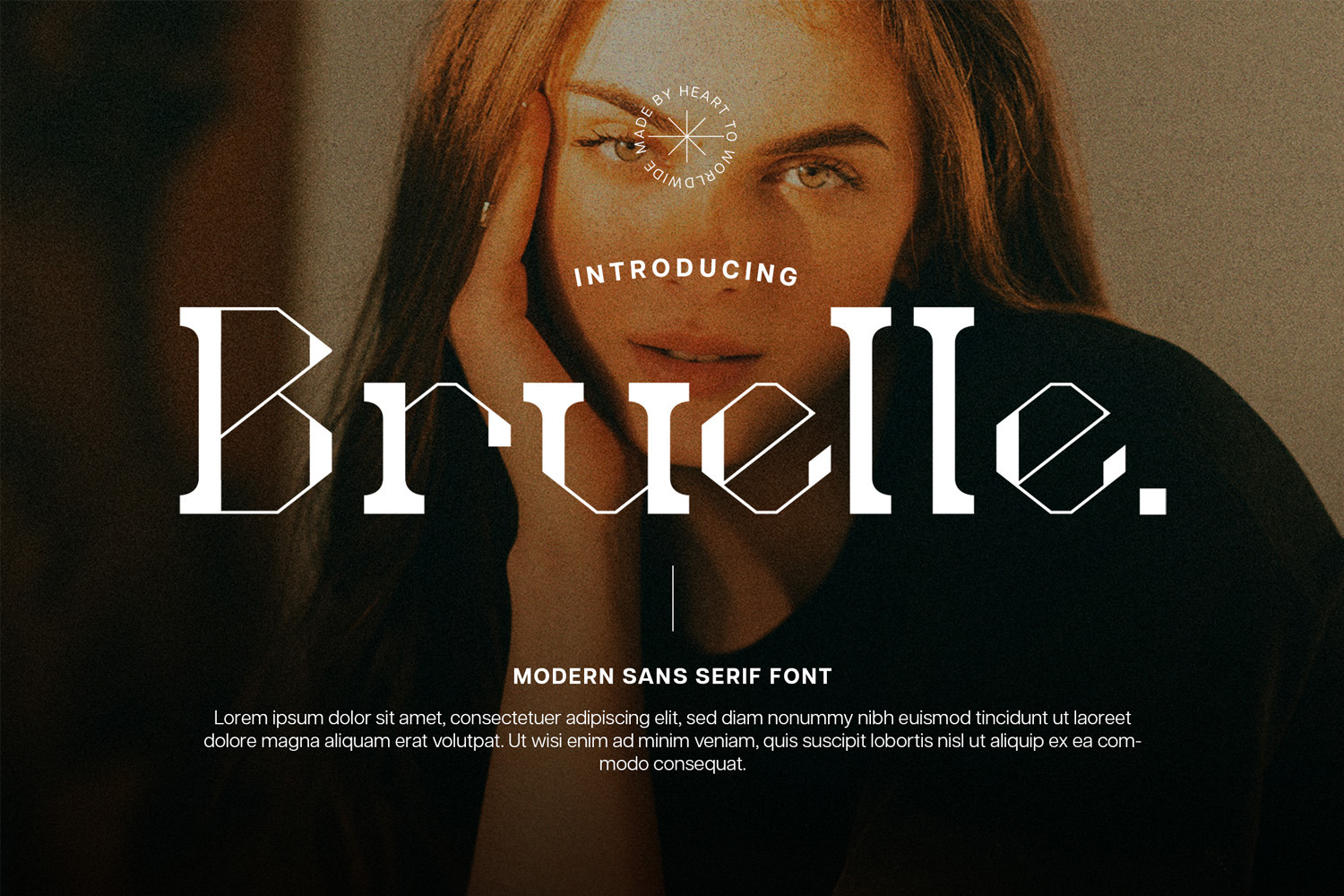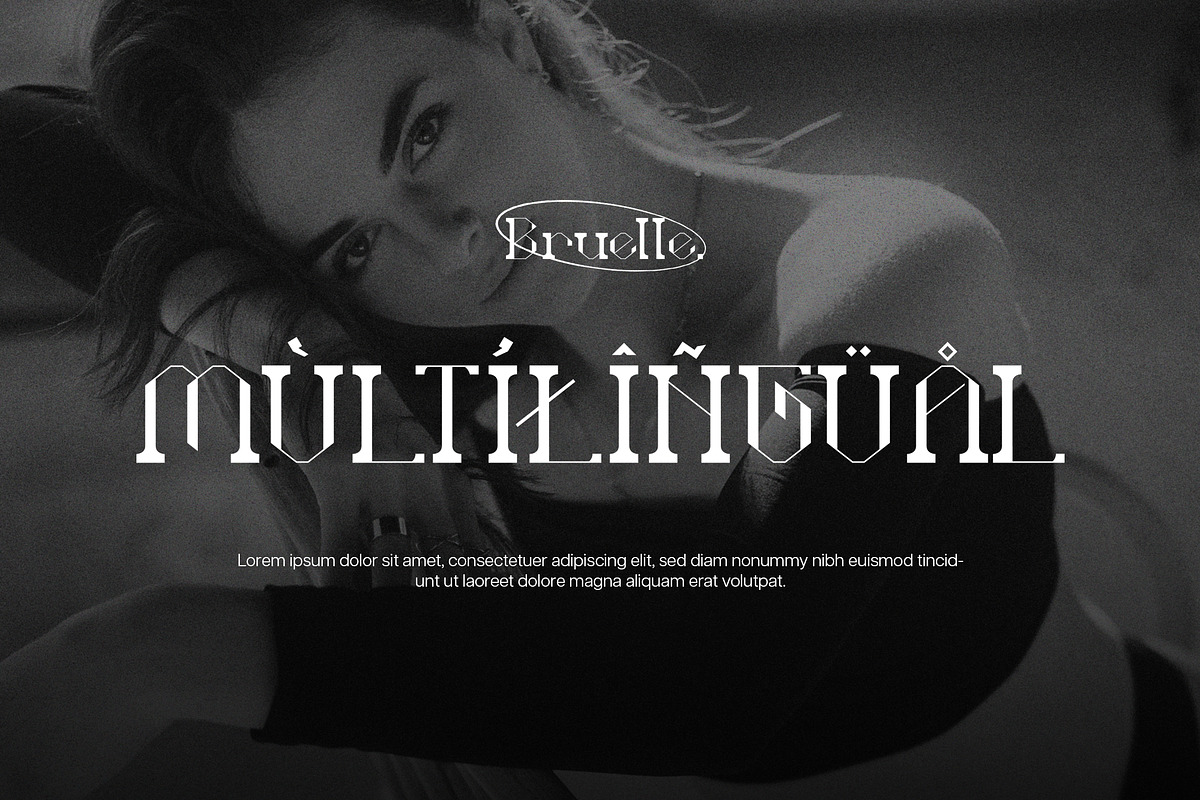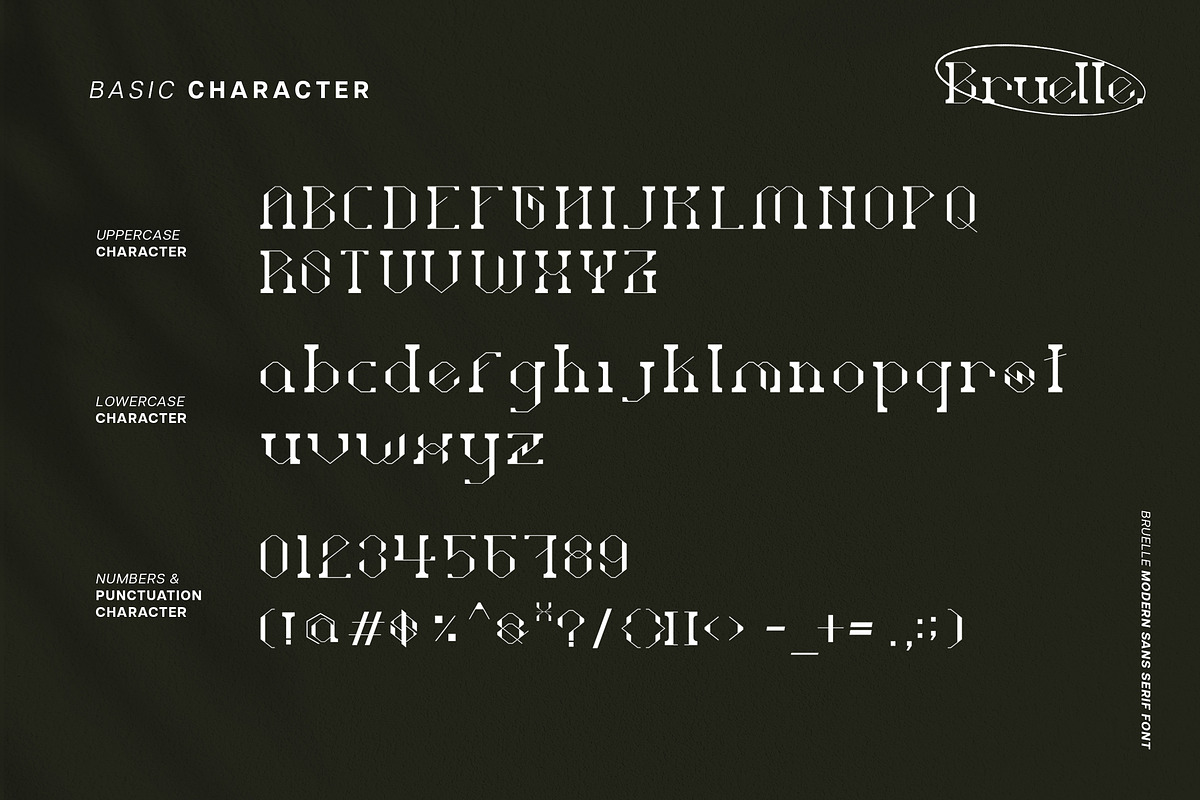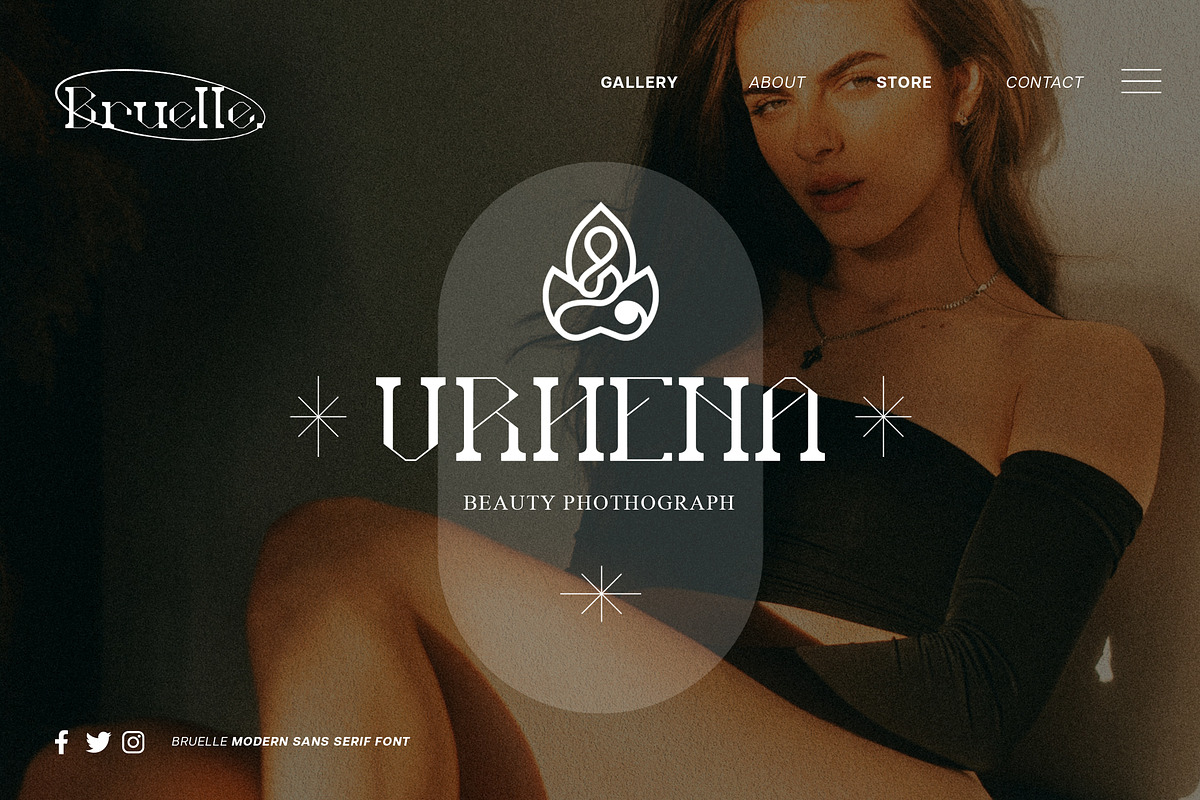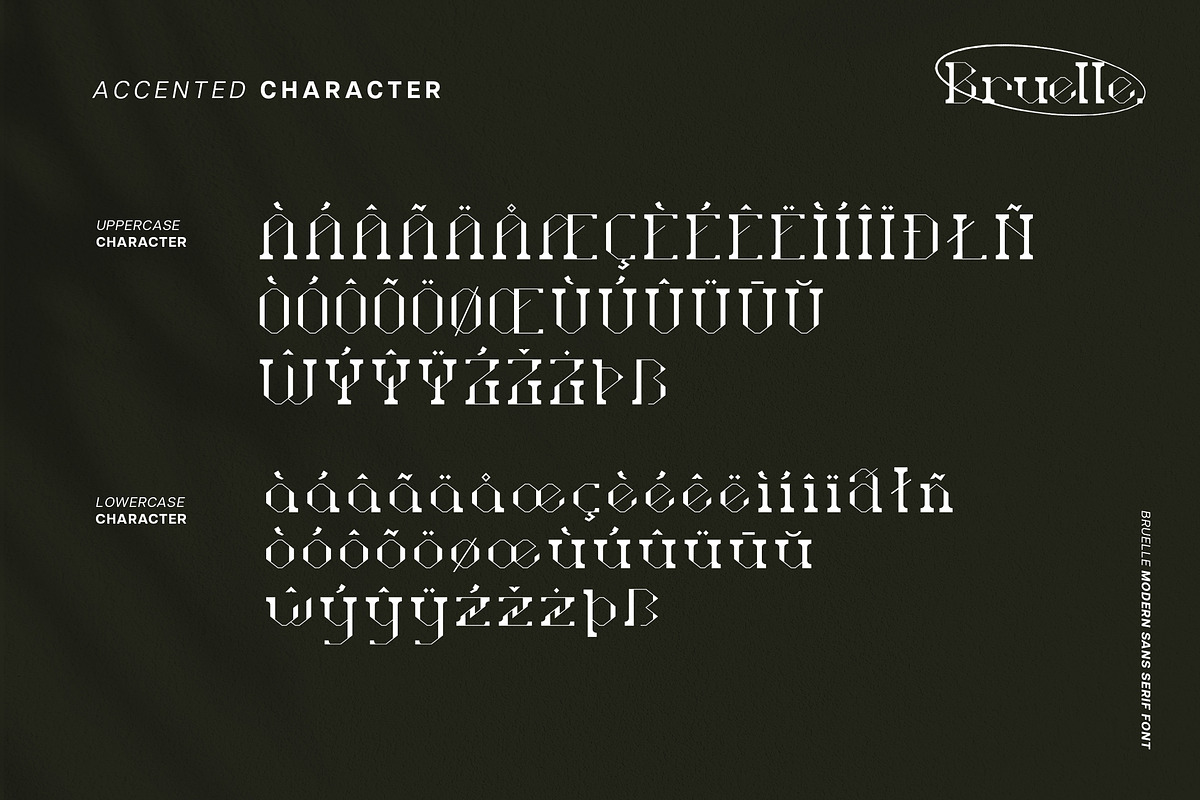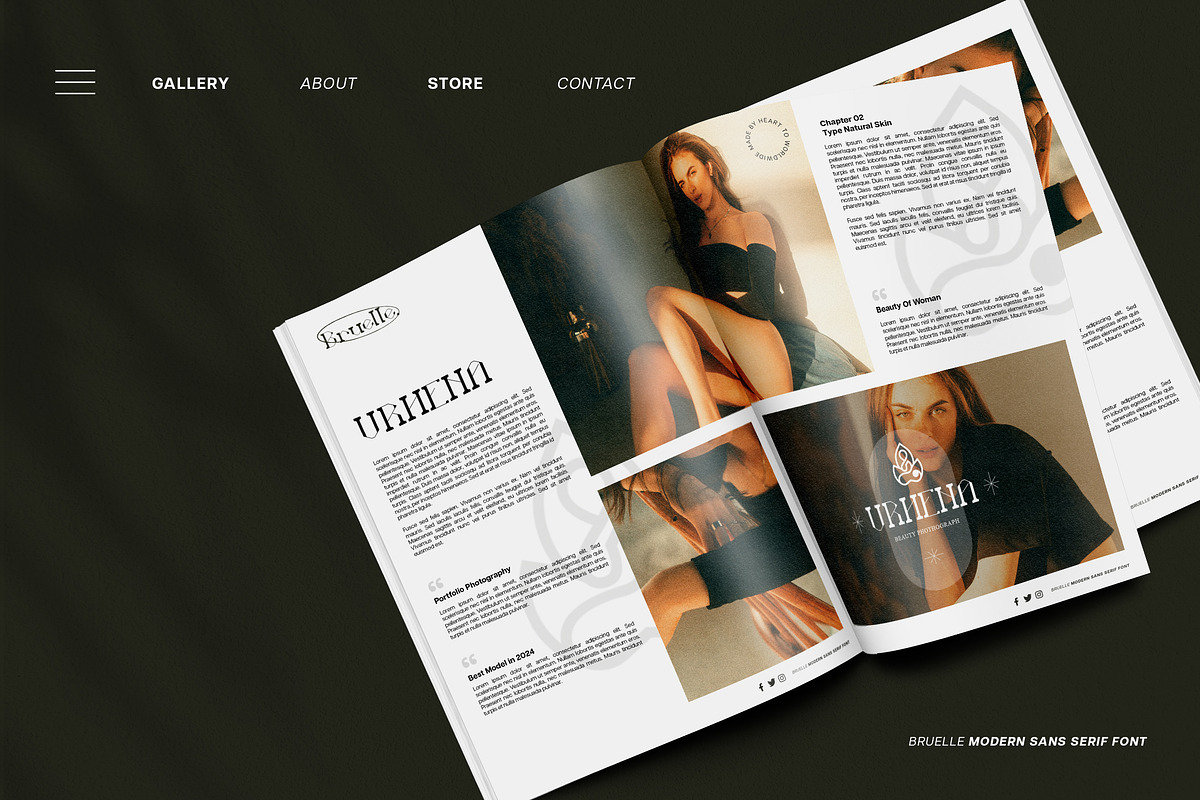
Bruelle Fonts
Bruelle is script font with good style and modern touch, these font includes:
Uppercase and Lowercase Characters, Numbers and Punctuation. Ligatures and Alternates. Multilingual Support (Eastern, Central and Western European countries). OTF and TTF file format. Works on PC or Mac and simply quick installation. Bruelle font is suitable to use for all purpose for your logo lettering, logo, label, packaging, sticker, branding and many more.